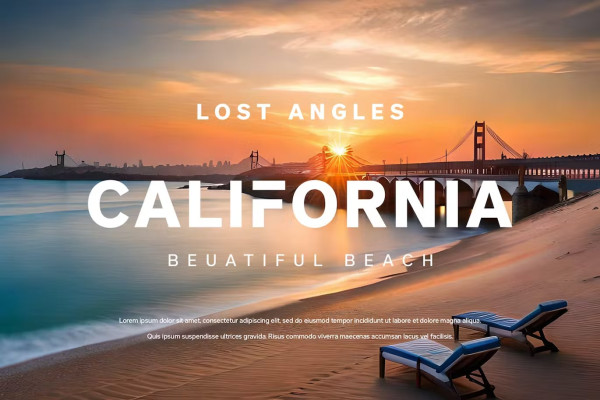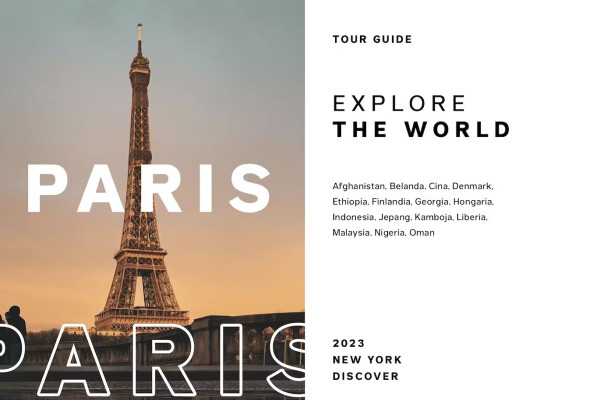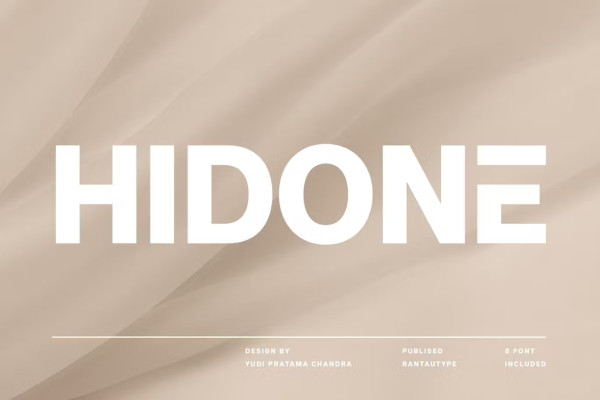
Hidone Font
Hidone Font, by rantautype. It is new casual sans serif font family. Hidone have 8 font included. Hidone will perfect for many project: branding, logos, magazines, movies, poster, quotes, broadcast, photography, invitation, blog, advertising, postcard, book, social media, website, etc. Hidone here to make your brand to high level!!!